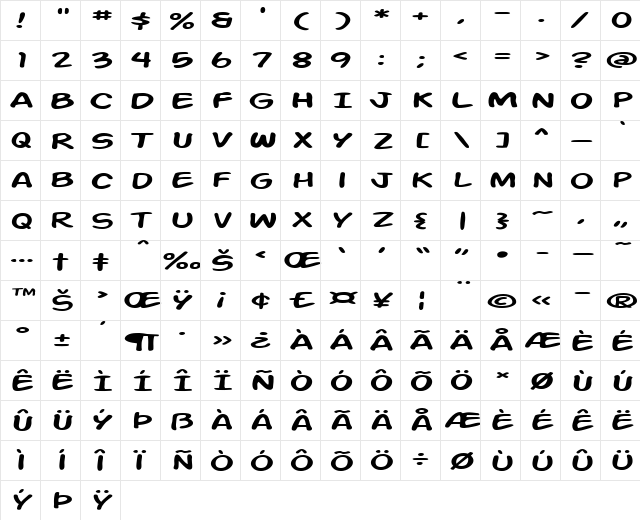
Action Man Extended Regular
Design Context for Action Man Extended Typeface
Action Man Extended is a composed and adaptable typeface that performs quietly and consistently across a wide range of design contexts.